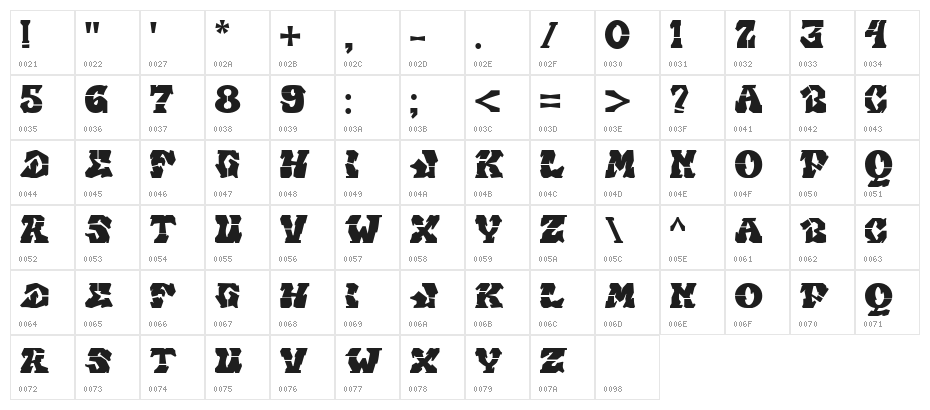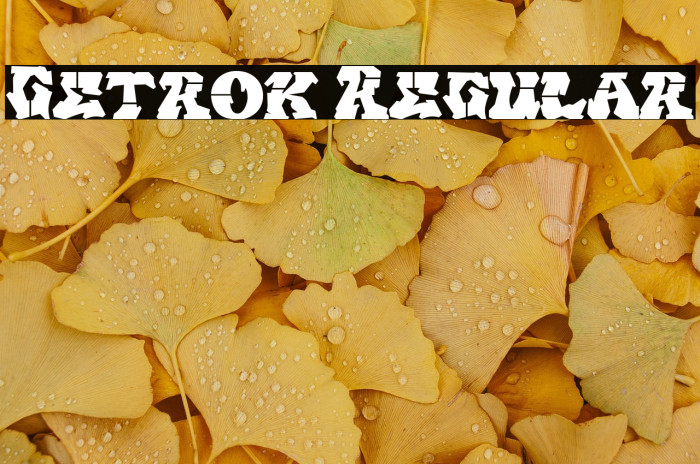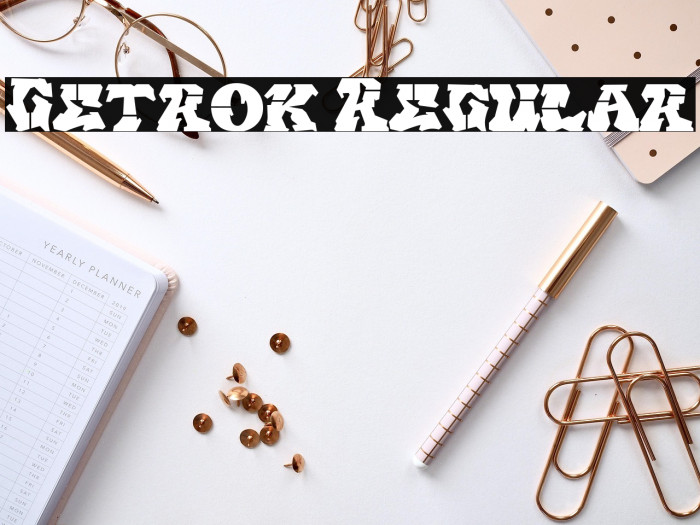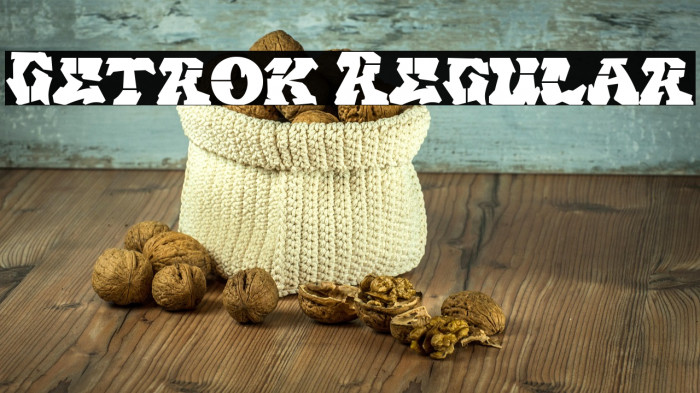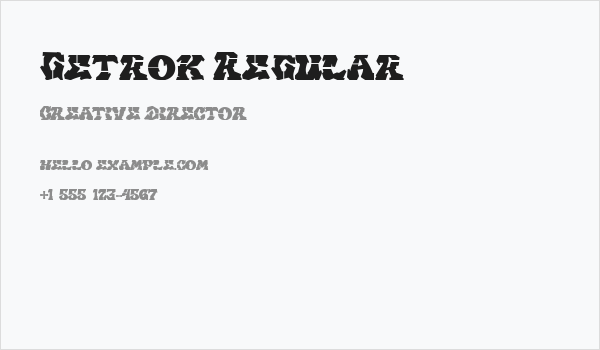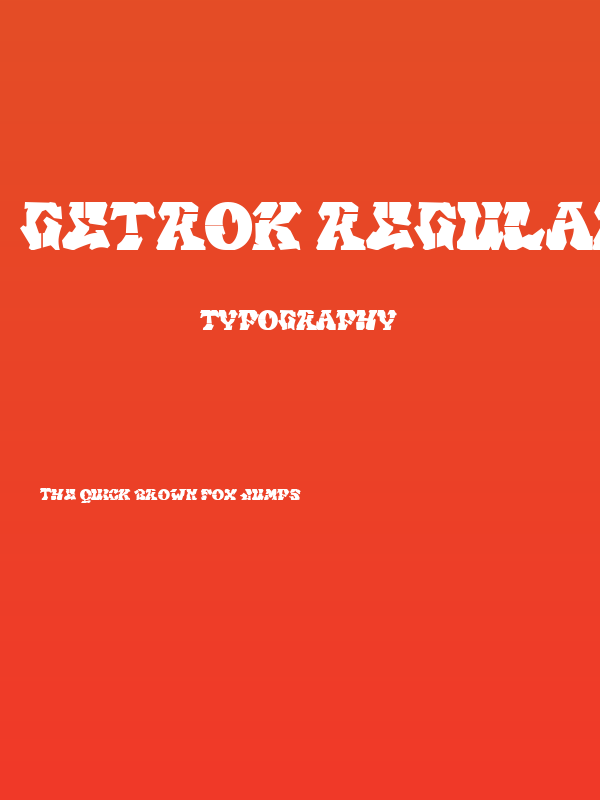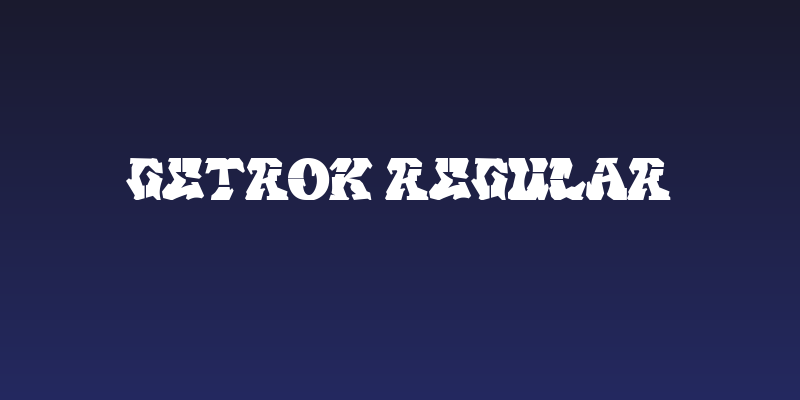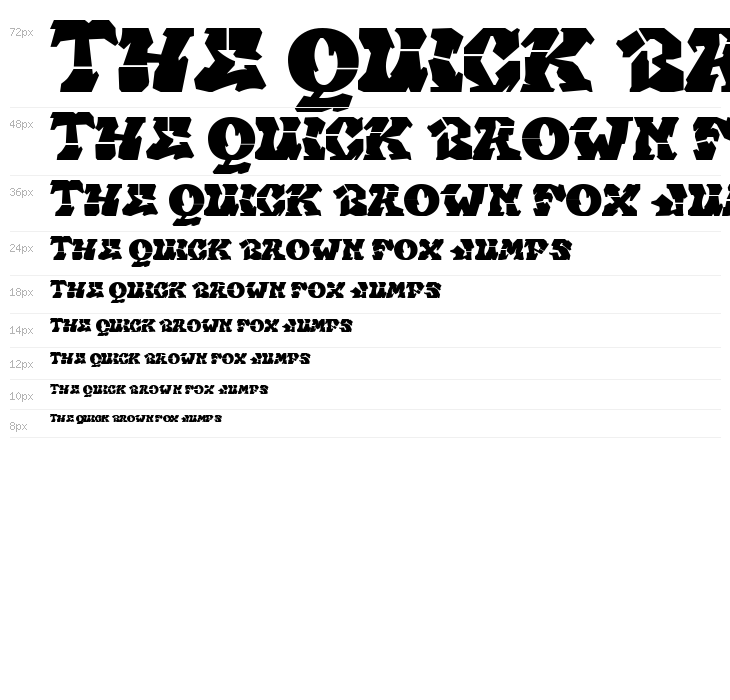
Getrok Regular Font
Getrok Regular Description
This font features a bold and dynamic design with a distinctly modern and edgy appearance. The characters are constructed with sharp angles and geometric shapes, giving them a fragmented and aggressive look. The uppercase and lowercase letters maintain a consistent style, with the uppercase being particularly striking due to their larger size and more pronounced angles. The numbers and special characters follow the same design principles, ensuring a cohesive appearance across all glyphs. The font's unique style makes it stand out, making it suitable for attention-grabbing designs.
| Proposed Projects | Ideal for posters, album covers, video game graphics, and branding that requires a bold statement. |